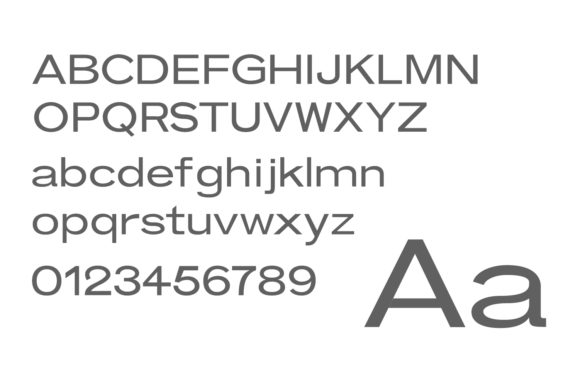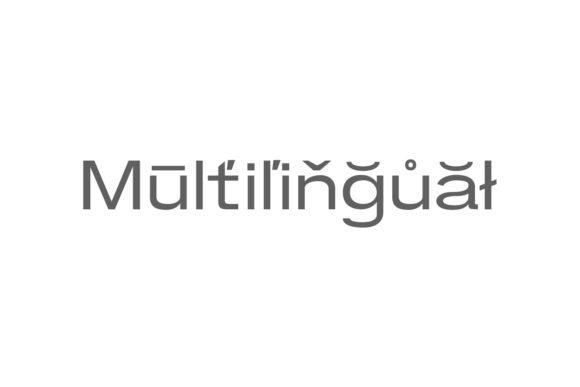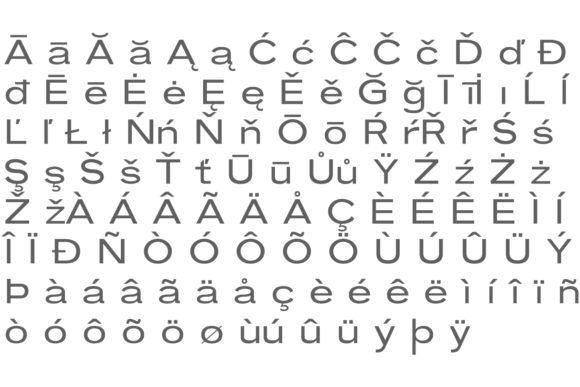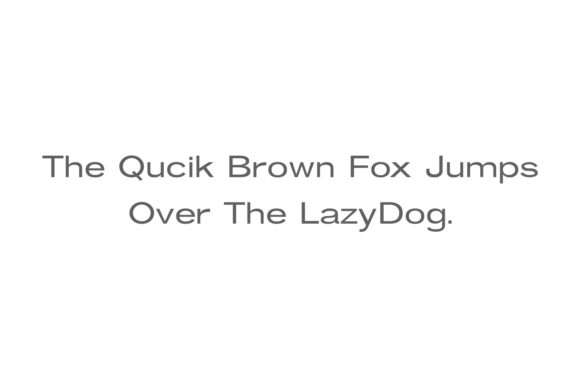
The Boulia Family Font: A Designer’s New Best Friend
I’ll never forget the time I was working on a project for a client who wanted a modern, elegant look. I had spent hours browsing through font libraries, but nothing seemed quite right. That was until I stumbled upon the Boulia Family Font. Its clean, rounded sans serif design immediately caught my eye, and I knew I had found the perfect fit. In this article, I’ll share my experience with the Boulia font, its features, and how to make the most of it in your designs.
- ✨ The Boulia Family Font comes in six weights, making it versatile for various design projects, from logos to body text.
- ✅ Its rounded edges give it a friendly, approachable feel that’s perfect for brands looking for a softer image.
- ✅ The font is highly legible, even at smaller sizes, making it ideal for use in digital and print media.
- ✅ It’s a great choice for designers who want a clean, modern look without the fuss of complicated fonts.
While the Boulia Family Font is incredibly useful, there are a few things to keep in mind:
- 🤔 Some users might find the rounded style too similar to other sans serif fonts, but the Boulia’s unique touch sets it apart.
- Take advantage of OpenType features, such as stylistic alternates, to add variety to your text.
The Story Behind Boulia
The Boulia Family Font was designed with versatility in mind. Its creator aimed to produce a font that could be used in a wide range of applications, from professional branding to personal projects. The result is a clean, modern sans serif font that’s both elegant and approachable.
Q: What is the Boulia Family Font best used for?
A: The Boulia Family Font is incredibly versatile and can be used for logos, invitations, texts, presentations, magazines, posters, notices, titles, name cards, web layouts, headers, branding, weddings, social media, product design, stationery, and advertising.
Q: How many weights does the Boulia Family Font come in?
A: The Boulia Family Font comes in six weights, providing a range of options for different design needs.
Q: Is Boulia suitable for body text?
A: Yes, Boulia is highly legible and can be used for body text, especially in digital media. However, for very long texts, you might consider pairing it with a serif font for better readability.